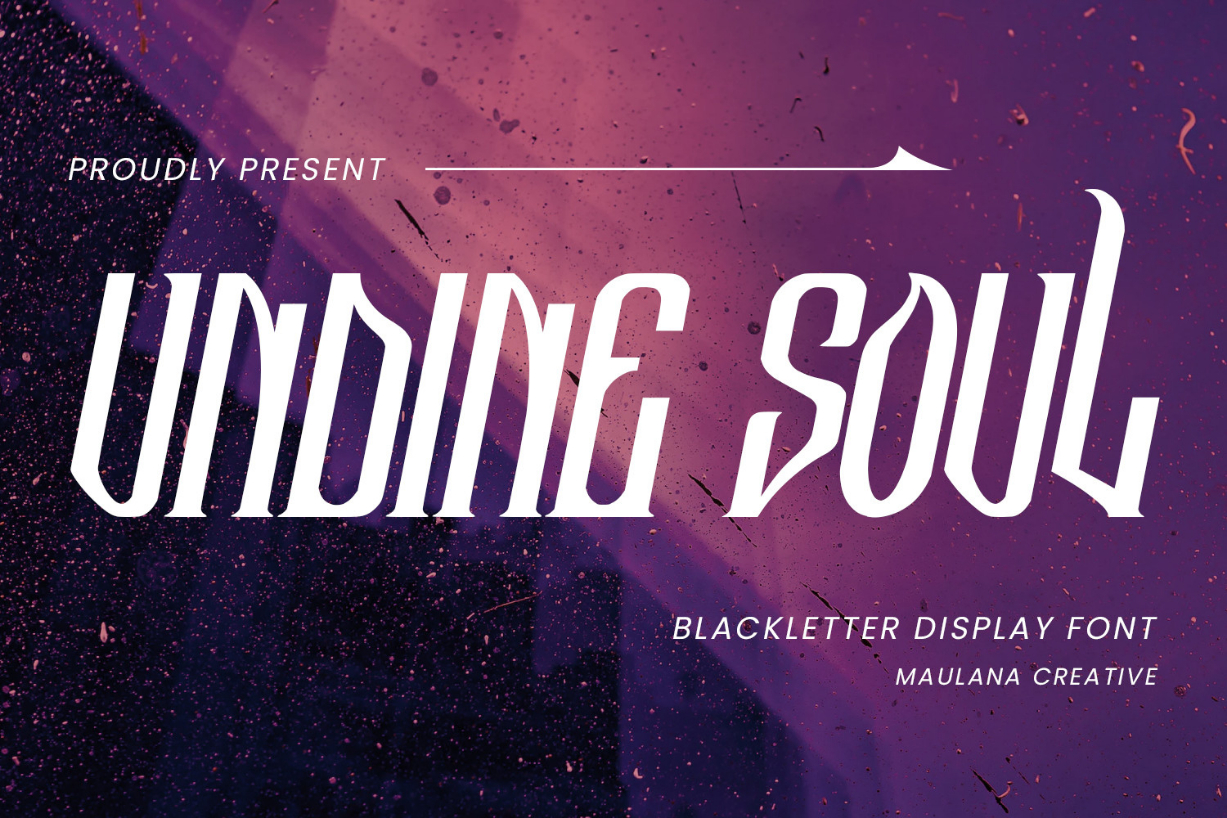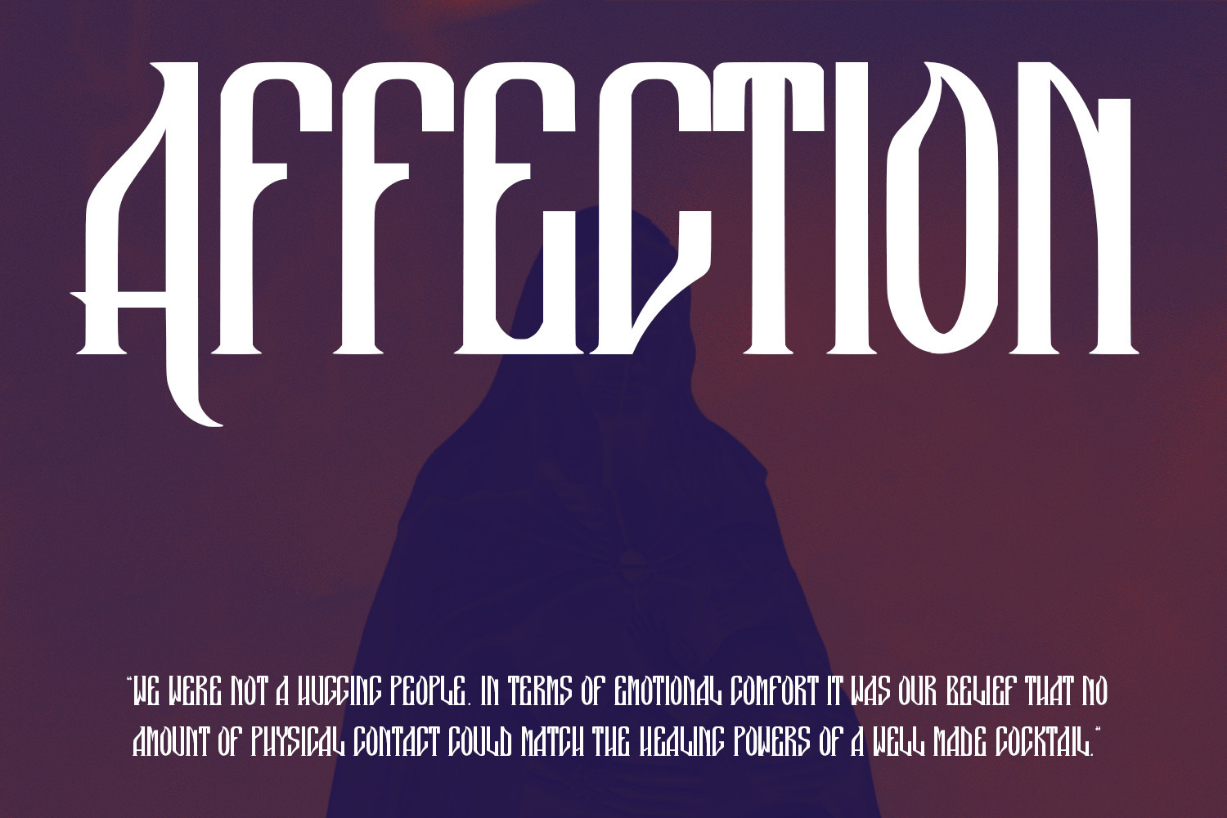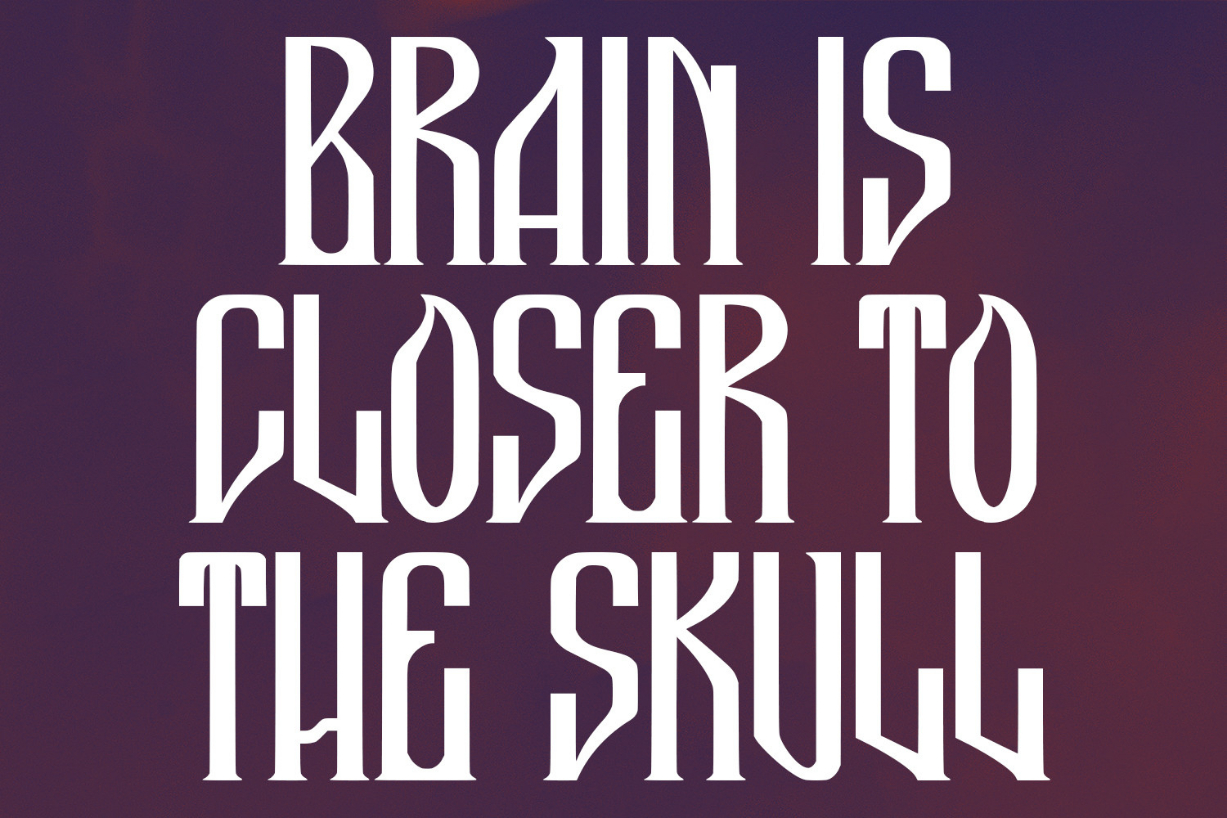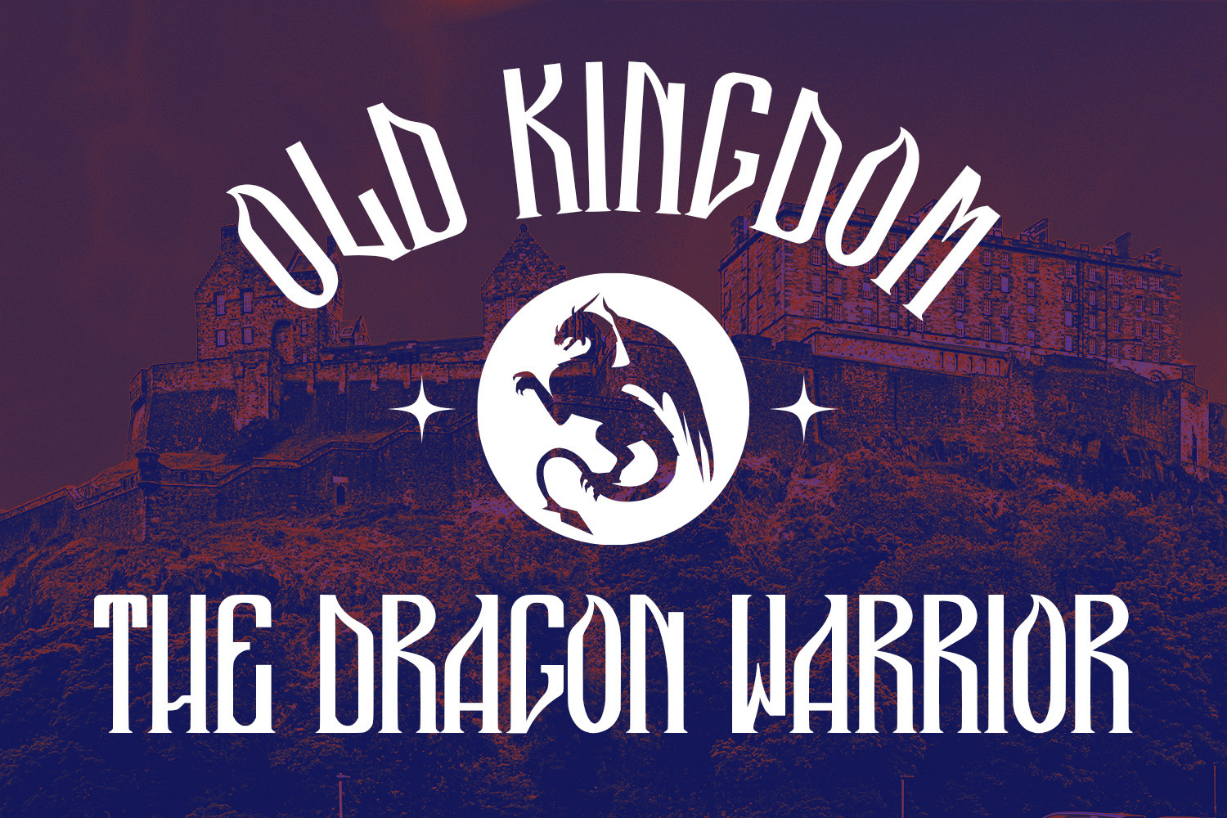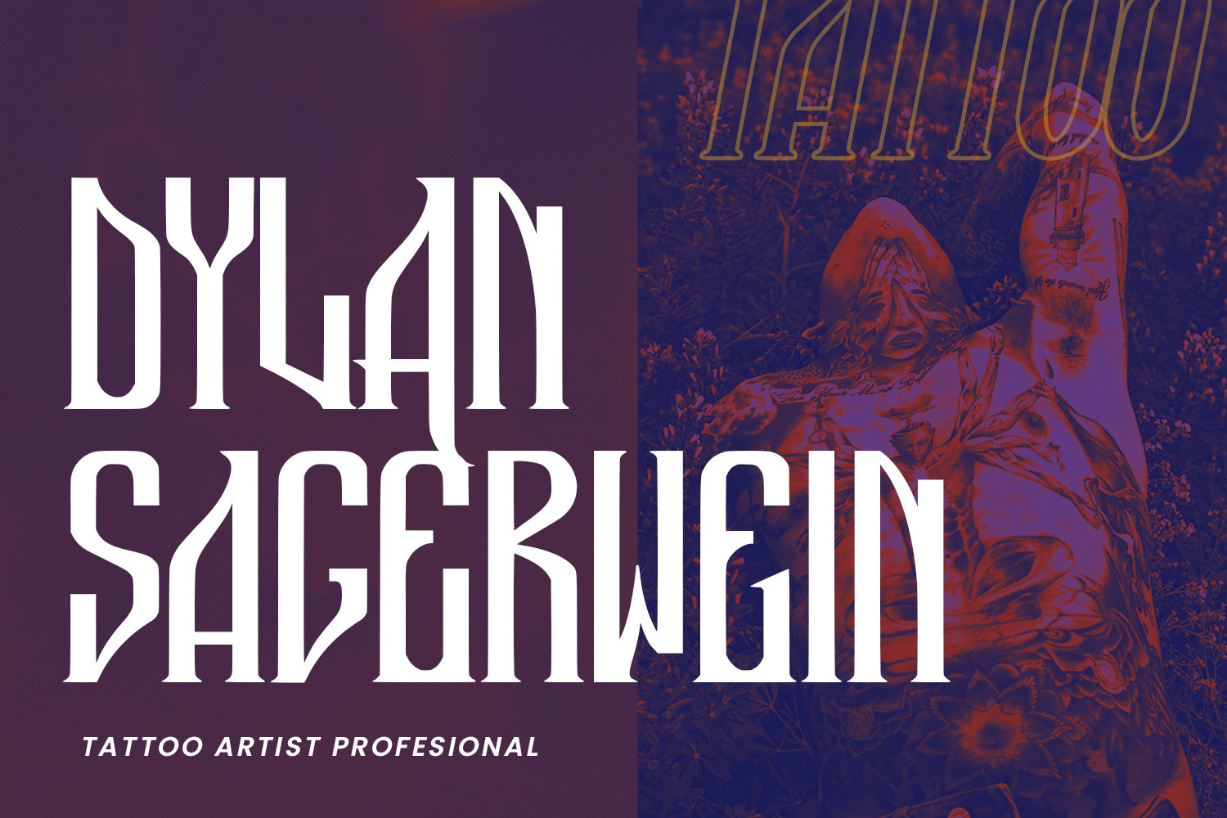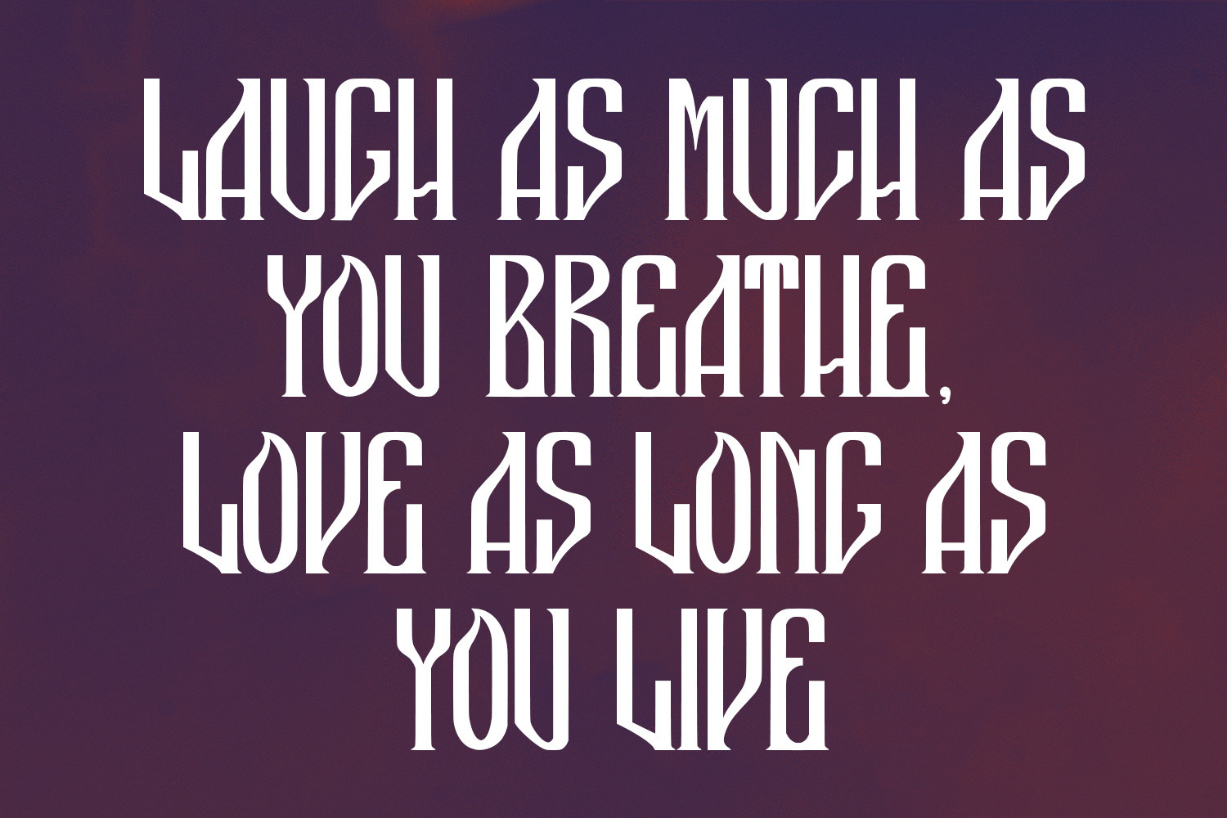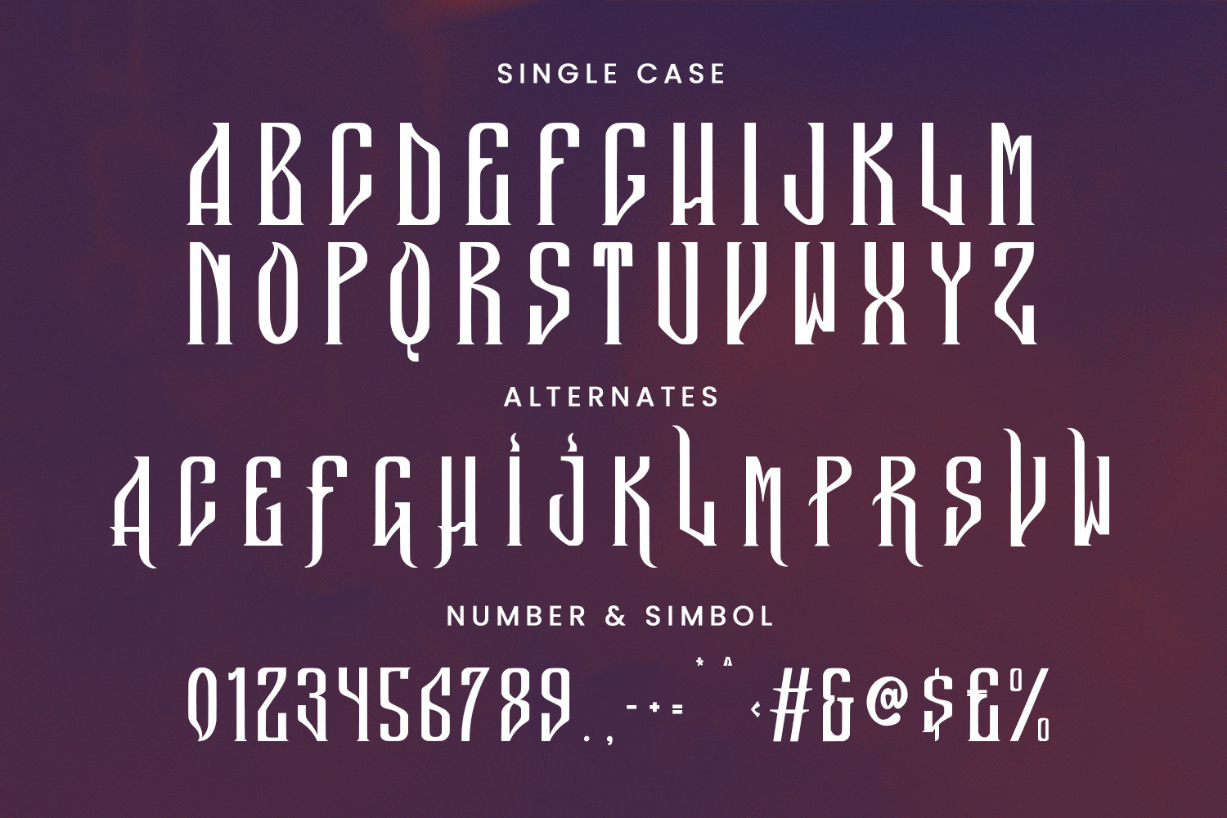
Undine Soul Font
About Undine Soul Font
Undine Soul blackletter display font. Bold stroke, fun character with a bit of ligatures and alternates. To give you an extra creative work. Undine Soul font support multilingual more than 100+ language. This font is good for logo design, Social media, Movie Titles, Books Titles, a short text even a long text letter and good for your secondary text font with script or serif. Make a stunning work with Undine Soul font.